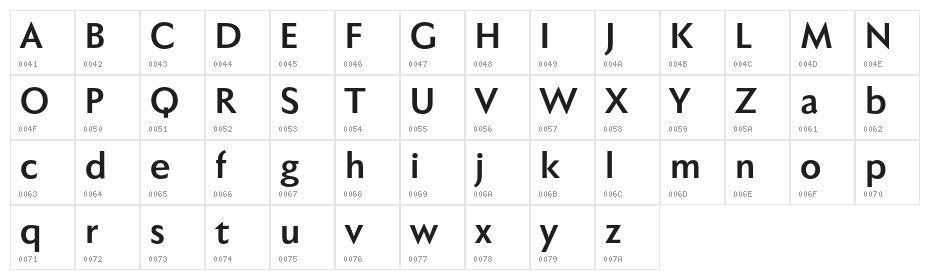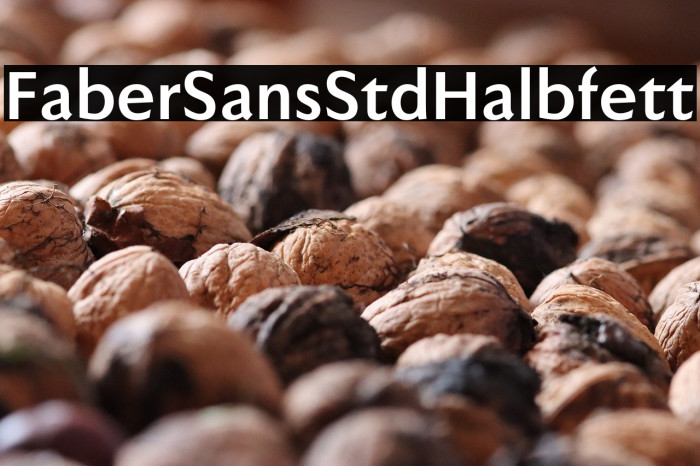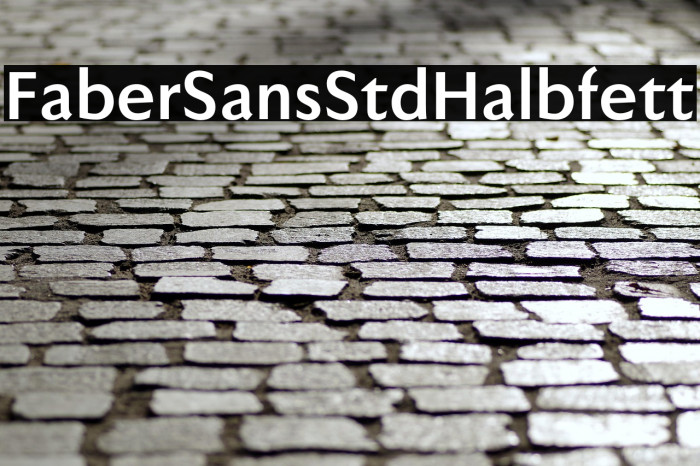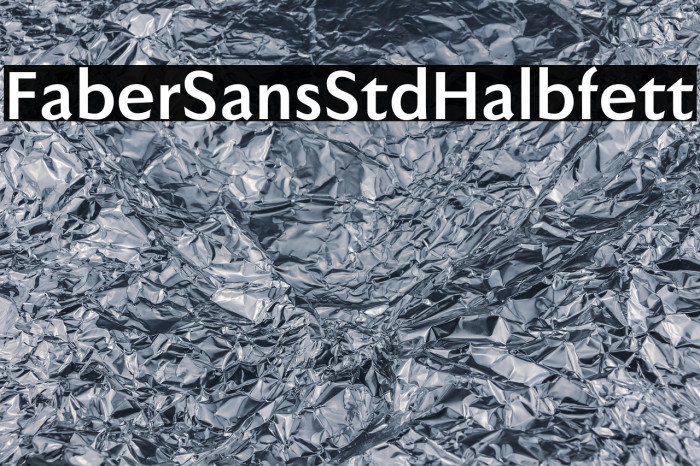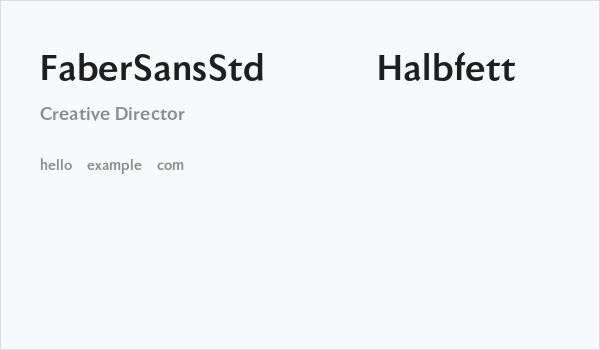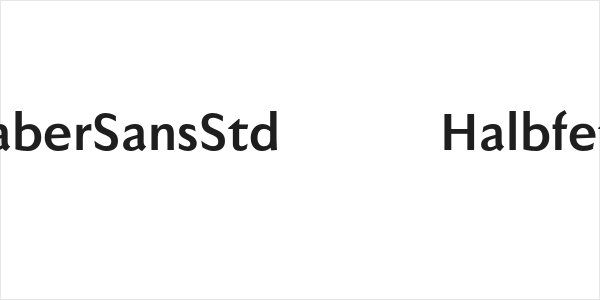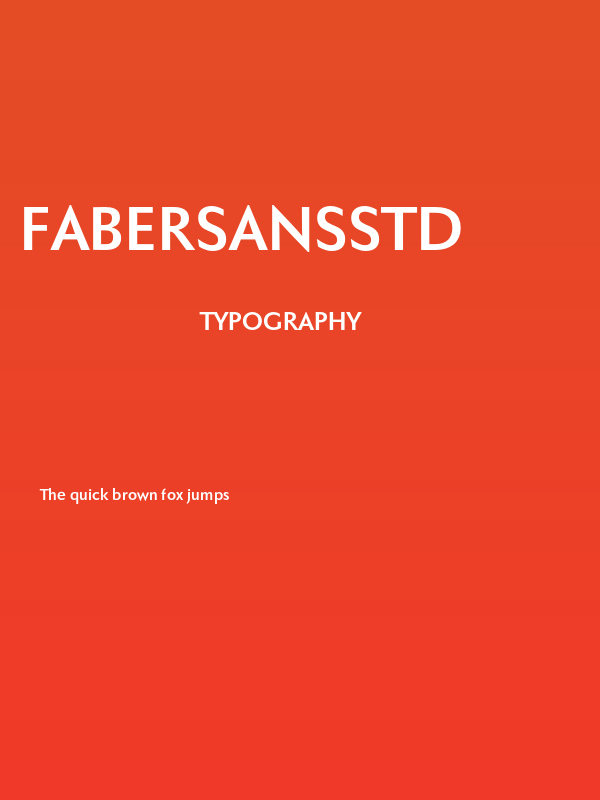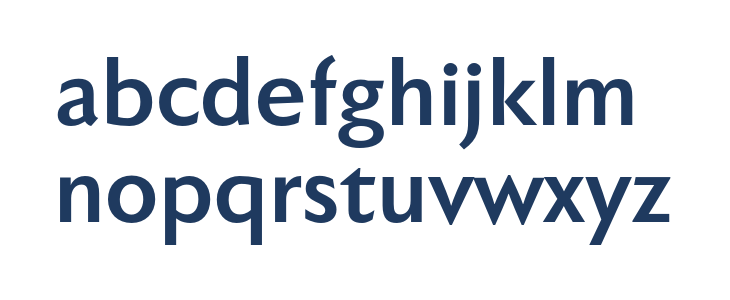
FaberSansStd-75Halbfett Font
FaberSansStd-75Halbfett Description
This font features a clean and modern sans-serif design, characterized by its bold weight and slightly condensed letterforms. The strokes are uniform, providing a balanced and harmonious appearance. The uppercase letters are strong and assertive, while the lowercase letters maintain a friendly and approachable feel. The font's simplicity and clarity make it highly legible, suitable for a variety of applications. Its geometric shapes and even spacing contribute to its contemporary aesthetic, making it versatile for both digital and print media.